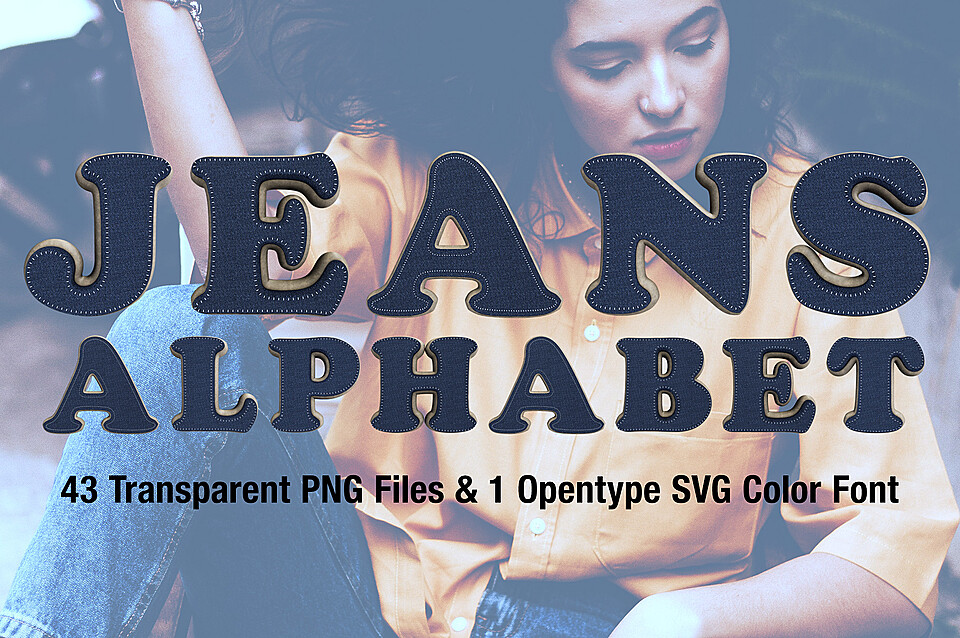
MS Jeans Bitmap Font & PNGs
Each letter is modelled and rendered in a 3D Application, also converted into an Opentype SVG (Color Font)
Basic western uppercase letters
Numbers
Basic Punctuation and Symbols